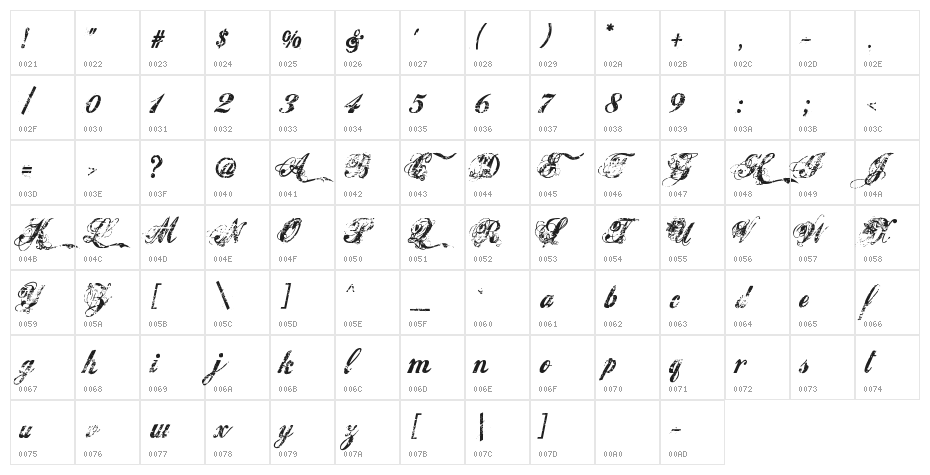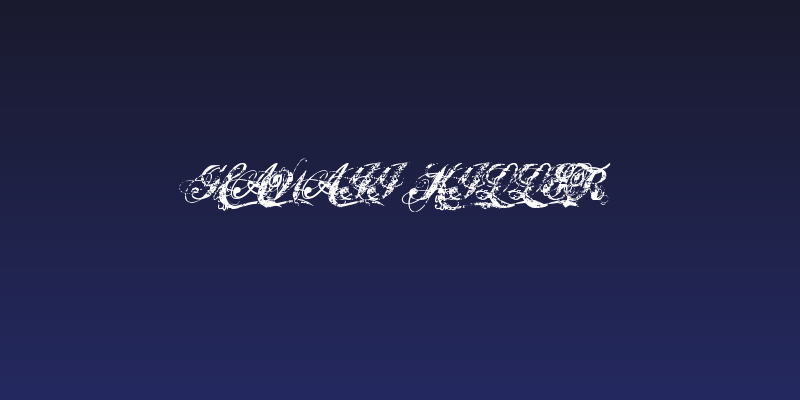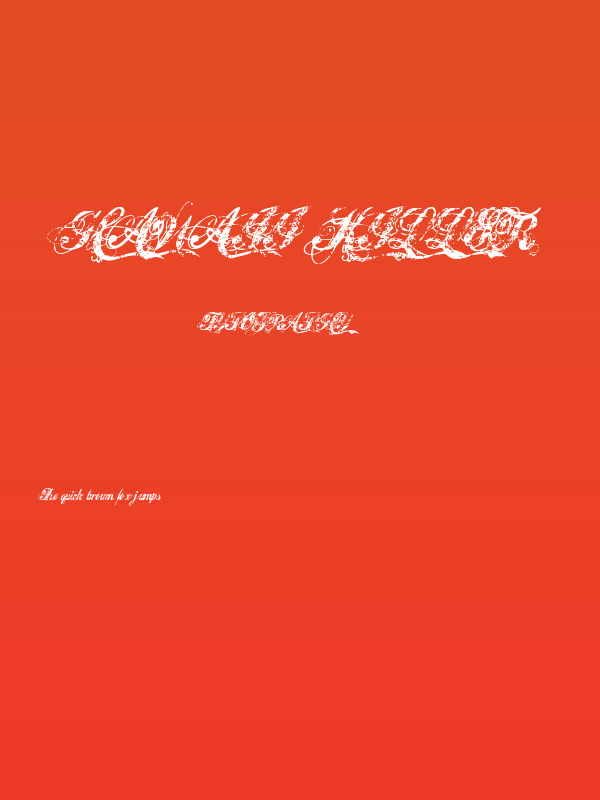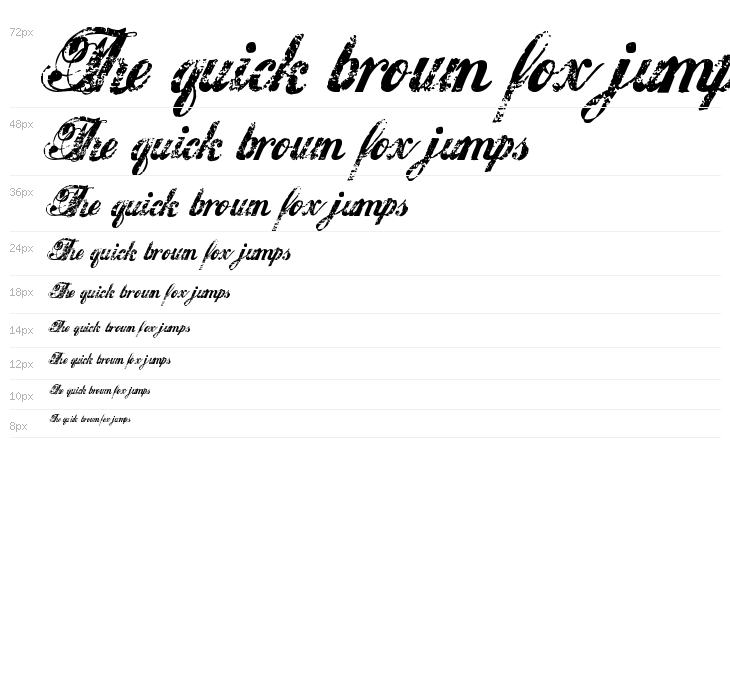
Hawaii Killer Font
Hawaii Killer Description
This font features a distressed, grunge style with a script-like appearance. The letters are intricately designed with a rough texture, giving them a worn and vintage feel. The uppercase and lowercase letters flow together with a cursive elegance, while the numbers and special characters maintain the same distressed aesthetic. The overall look is bold and eye-catching, making it suitable for designs that require a strong, artistic statement. The font's unique texture and style make it stand out, ideal for projects that aim to convey a sense of edginess or artistic flair.
| Overall Style | Vintage, Grunge, Artistic |
| Use Case | Logos, Posters, Album Covers |
| Proposed Projects | Ideal for album covers, posters, branding for edgy or artistic products, and any design requiring a vintage or grunge aesthetic. |